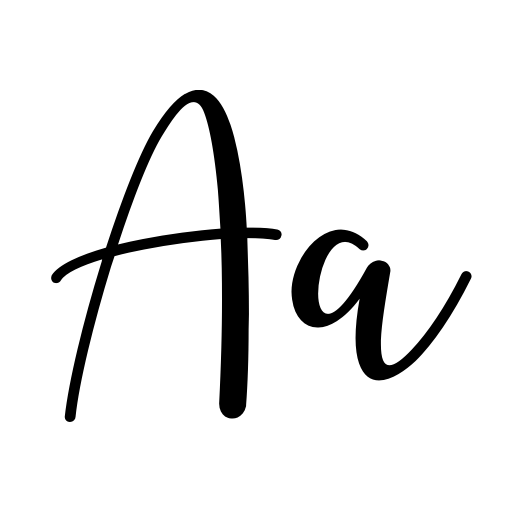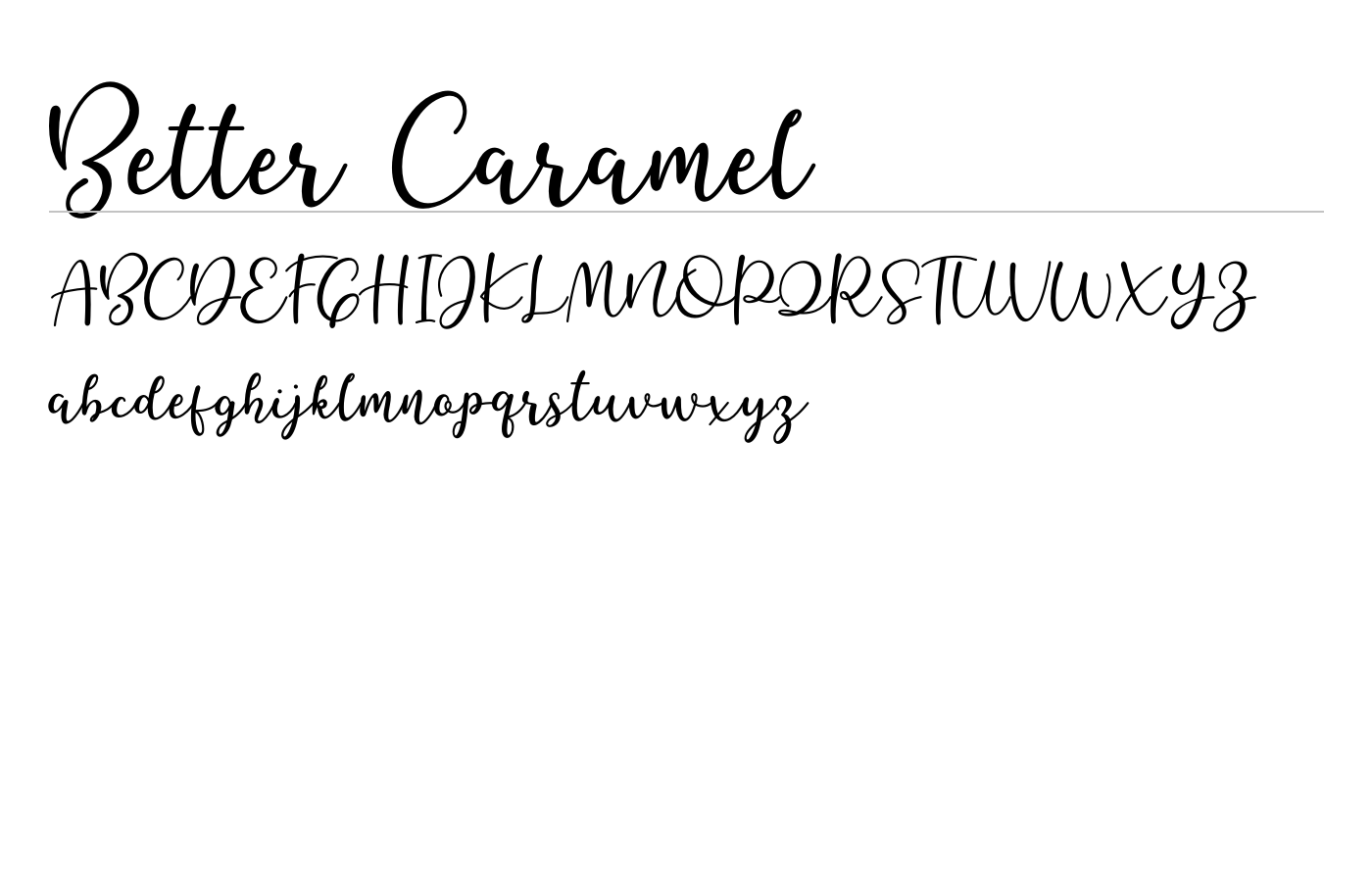
Better Caramel is a charming script font with a delicate, hand-lettered feel, featuring smooth, flowing strokes and a casual yet elegant personality. Its slender, slightly irregular letterforms give it a warm, personal touch, making it ideal for invitations, branding, and any design that seeks a friendly and approachable aesthetic. This font works wonderfully for projects that want to convey creativity and warmth without sacrificing readability.
Better Caramel Font
About Better Caramel Font
| Font family | Better Caramel Font |
| Designer | Sronstudio |